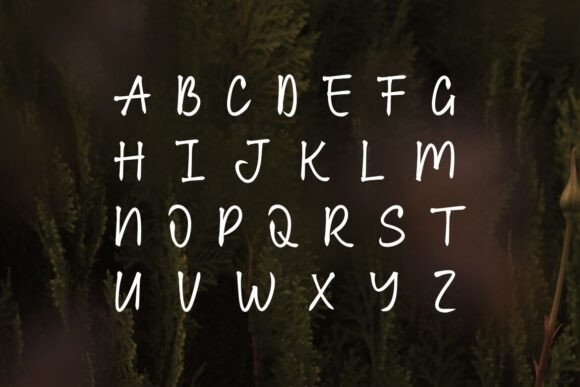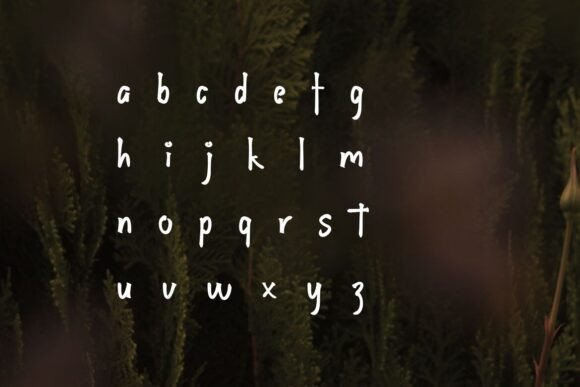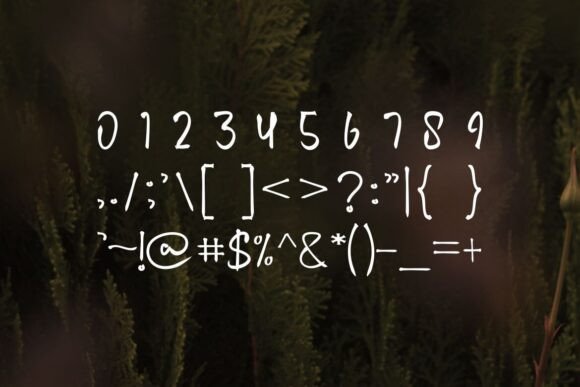
Introduction to Optimis Style Font
Have you ever stumbled upon the perfect font at the most unexpected moment? It’s like the stars aligning, and your creative project suddenly comes to life. That’s exactly what happened to me when I discovered the Optimis Style Font. Its unique blend of elegance and modernity left me breathless, and I knew I had to share it with fellow designers.
As a design enthusiast, I’m always on the lookout for high-quality fonts that can elevate my creative projects. And let me tell you, the Optimis Style Font is a game-changer. Whether you’re working on a design project, creating social media graphics, or crafting beautiful calligraphy scripts, this font is sure to impress. With its transparent background and versatility, it’s a valuable resource for any designer looking to take their work to the next level.
Key Features of Optimis Style Font
- High-quality, professional font design ideal for creative projects requiring a touch of elegance and sophistication.
- Designed with a focus on versatility, making it suitable for a wide range of creative applications, from branding and advertising to editorial and publishing.
Honest Review: Optimis Style Font
I recently came across the Optimis Style Font while searching for a new design resource to enhance my creative project. At first glance, I was impressed by its sleek and modern aesthetic.
- The Optimis Style Font has a wide range of characters, including international symbols and punctuation marks, making it a versatile option for various design projects.
- The Optimis Style Font may not be suitable for formal or traditional designs, as it has a more modern and playful feel.
Overall, I’m impressed with the Optimis Style Font’s high quality and ease of use. While it may not be the perfect fit for every design project, it’s definitely a great option to consider for creative projects that require a modern and stylish touch.
The Optimis Style Font is perfect for creative projects such as graphic design, web design, and digital art. It’s also great for branding and marketing materials, such as business cards, brochures, and flyers.